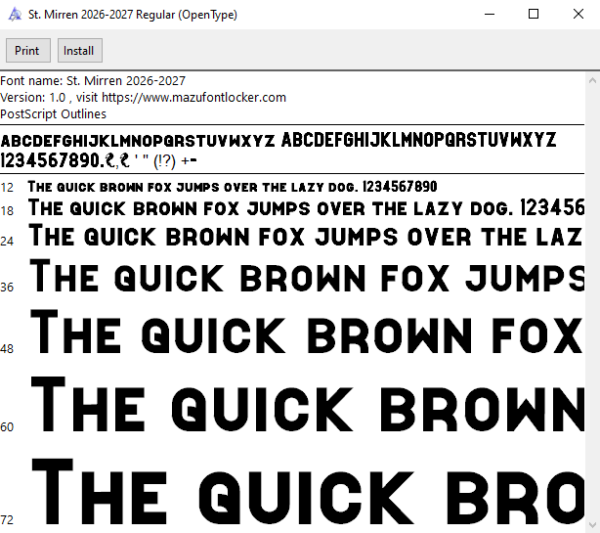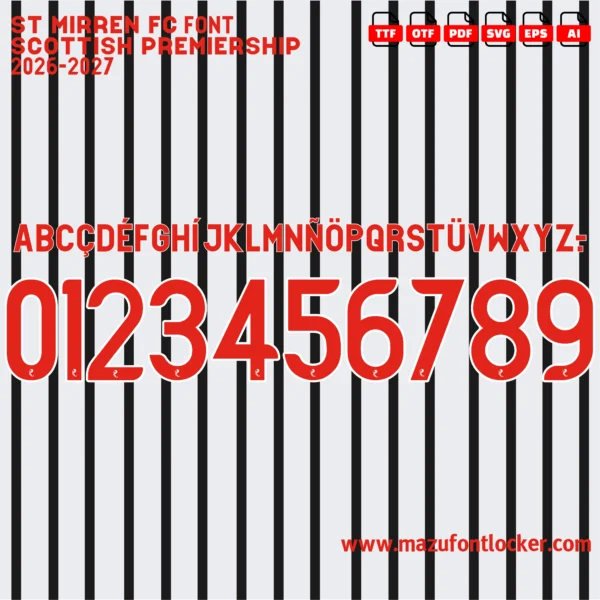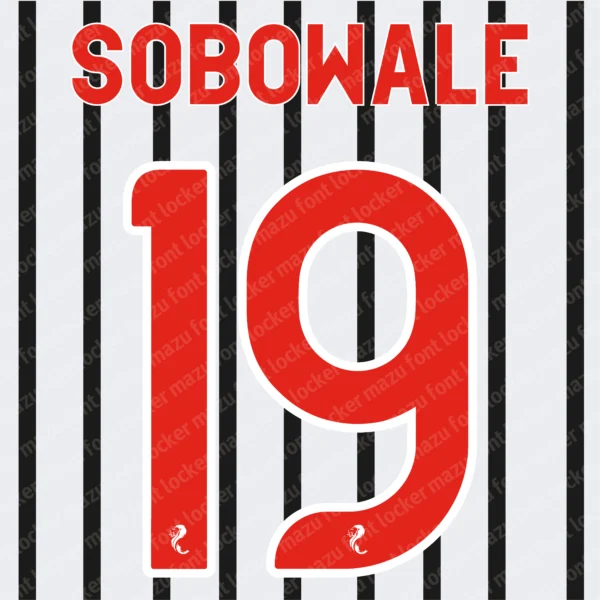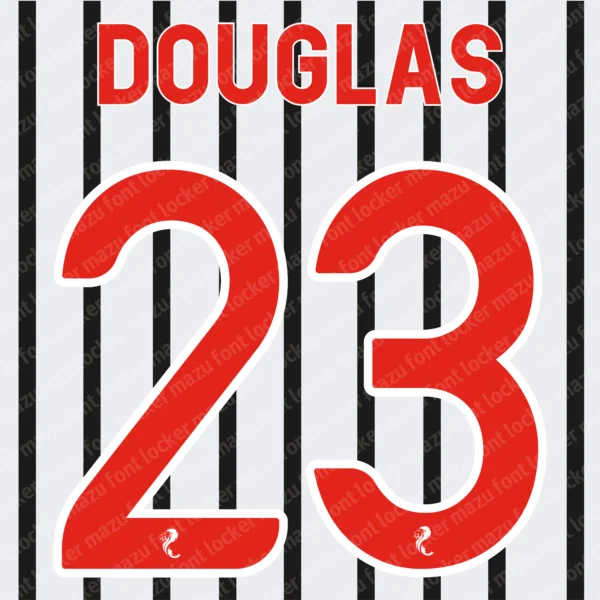
St Mirren FC 2026-2027 Font Vector – Epic Saints Black & White Masterpiece
This premium font captures the bold, dynamic, and championship-charged typography that perfectly embodies the spirit of the Buddies — delivering pure Scottish fire, relentless ambition, unbreakable determination, attacking flair, and the proud football culture that transformed St Mirren FC into one of Scotland’s most feared and celebrated forces.
St Mirren FC 2026-2027 Font Vector – Stunning Scottish Champions Typeface
The St Mirren FC 2026-2027 Font Vector is a premium typeface that accurately recreates the official match lettering worn by St Mirren Football Club during the anticipated 2026-2027 season. This high-quality vector font kit captures the bold, dynamic, and modern typography that represents one of the most exciting eras in the club’s history.
Why Choose St Mirren FC 2026-2027 Font Vector
This font stands out thanks to its faithful recreation of the official shirt lettering used by St Mirren FC during the 2026-2027 season. Every character has been carefully crafted to match the authentic player names and numbers seen on the pitch. Whether you are designing realistic kit concepts or creating football-themed artwork, the St Mirren FC 2026-2027 Font Vector delivers professional-quality authenticity.
The letterforms feature a clean, athletic, and contemporary design that reflects St Mirren’s proud Scottish heritage and fighting spirit. The balanced proportions and sharp detailing provide excellent readability while maintaining the club’s passionate identity from Paisley.
The numerals are bold, modern, and highly recognizable, closely matching the official squad numbers used throughout the 2026-2027 season. The vector format ensures perfect scalability for both digital and print applications.
• Complete uppercase A–Z and numbers 0–9 in authentic St Mirren FC 2026-2027 style
• Includes accurate crest glyph positioning for realistic jersey customization
The St Mirren FC 2026-2027 Font Vector is an independently designed typeface package created to replicate the official shirt lettering style used by St Mirren FC during the 2026-2027 season. It is ideal for retro football projects, jersey customization, fan artwork, historical recreations, and sports design work.